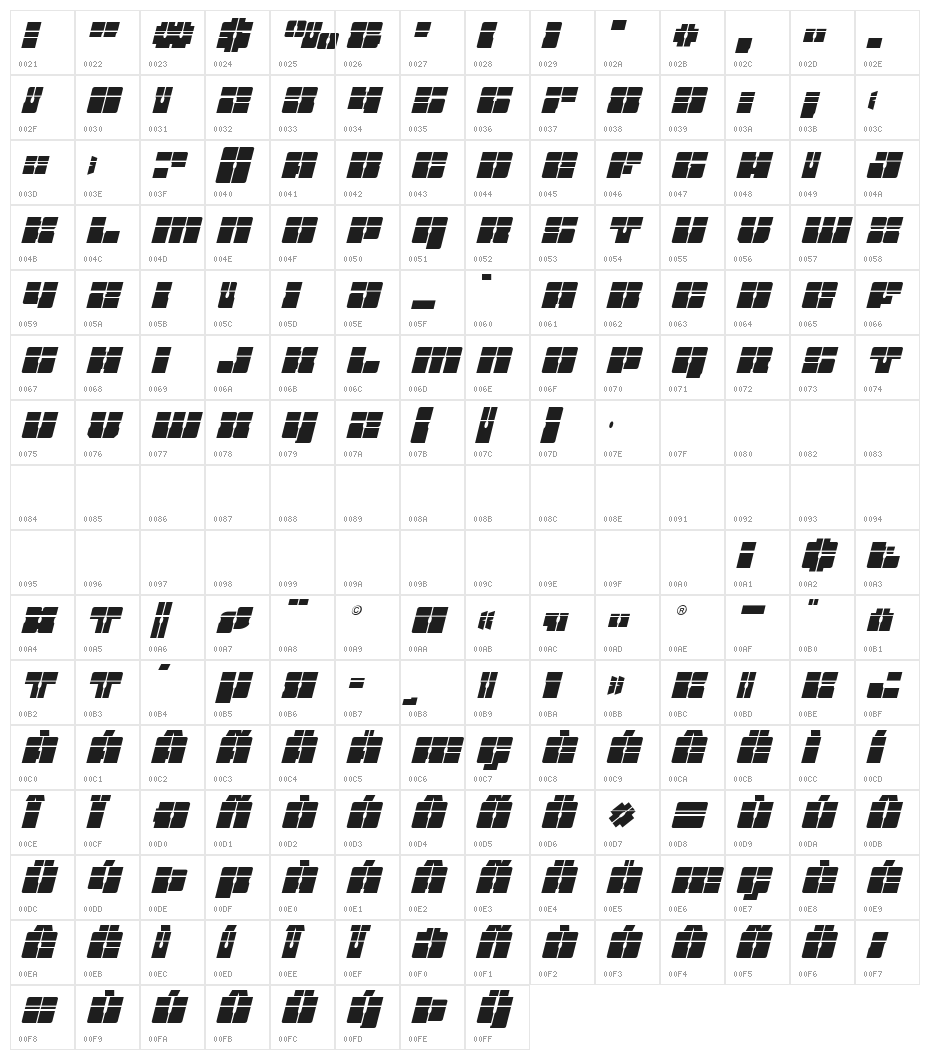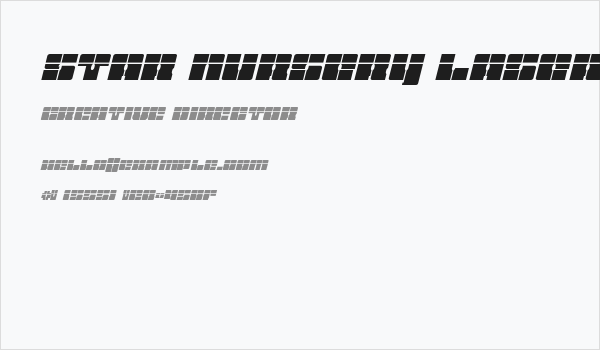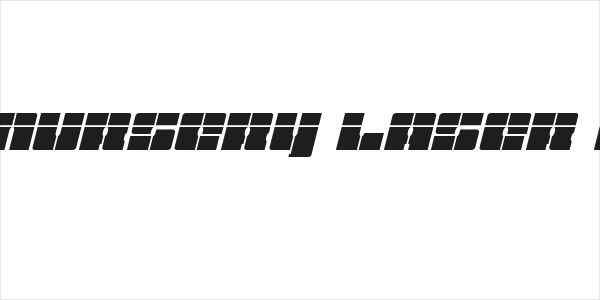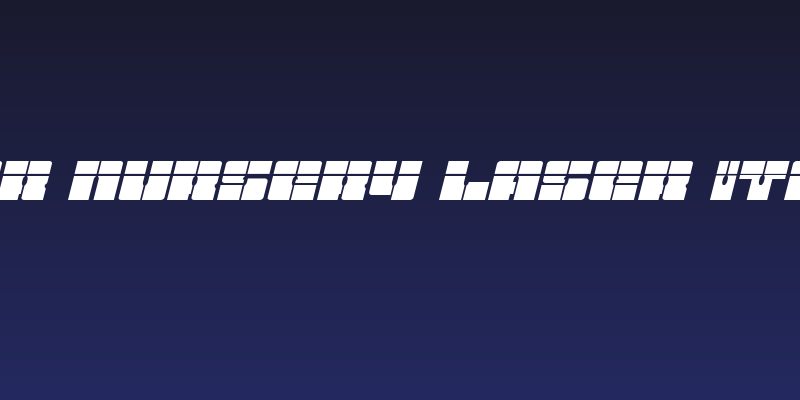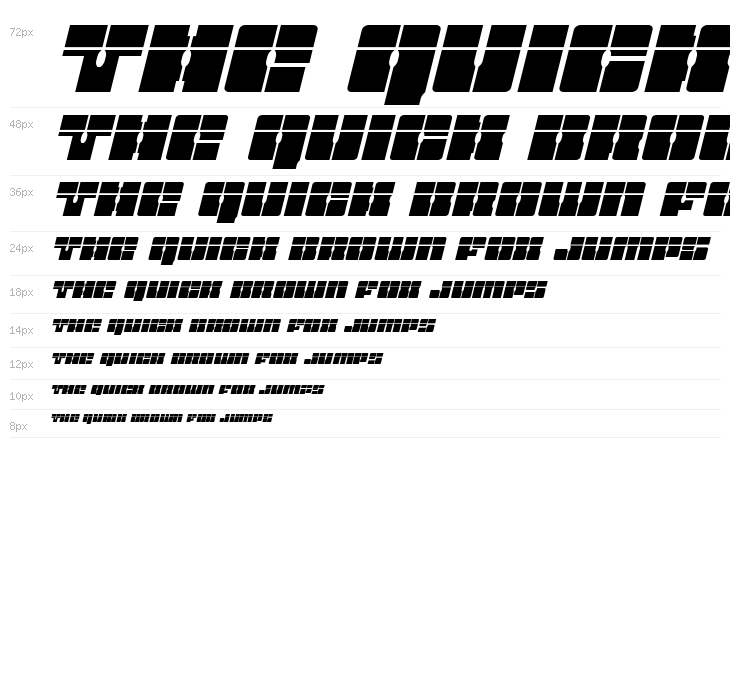
Star Nursery Laser Italic Font
Star Nursery Laser Italic Description
This font features a futuristic and bold design with a distinct italic slant, giving it a dynamic and forward-moving appearance. The characters are constructed with a blocky, geometric style, emphasizing sharp angles and straight lines. The uppercase and lowercase letters maintain a consistent width, creating a uniform look across the typeface. The numbers and special characters follow the same design principles, ensuring a cohesive visual identity. The font's unique style makes it stand out, suitable for projects that require a modern and edgy aesthetic.
| Proposed Projects | Ideal for sci-fi themed posters, video game titles, tech branding, and modern advertising campaigns. |